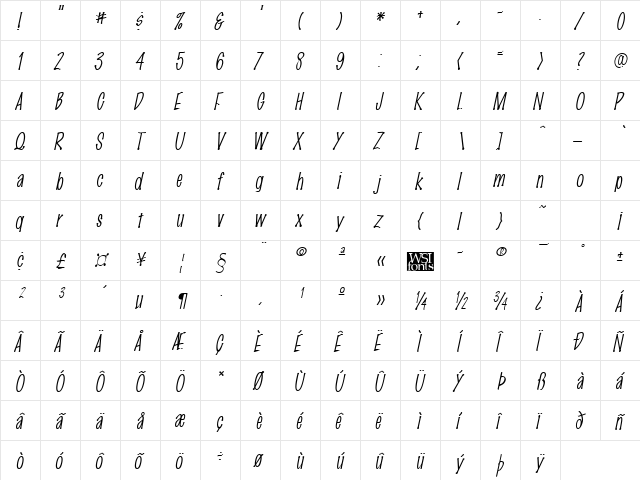
MarkingPen-Thin Italic Font Preview
Design Context for MarkingPen-Thin Typeface
MarkingPen-Thin takes a measured approach to typography — its balanced proportions and neutral character make it a reliable workhorse for both digital and print work. Its italic angle brings a sense of urgency and motion to the letterforms. The delicate stroke weight brings airiness and refinement to layouts.
Pro Tip: Try MarkingPen-Thin for annotation and caption copy alongside an upright companion — the contrast in angle creates a dynamic but ordered typographic system.